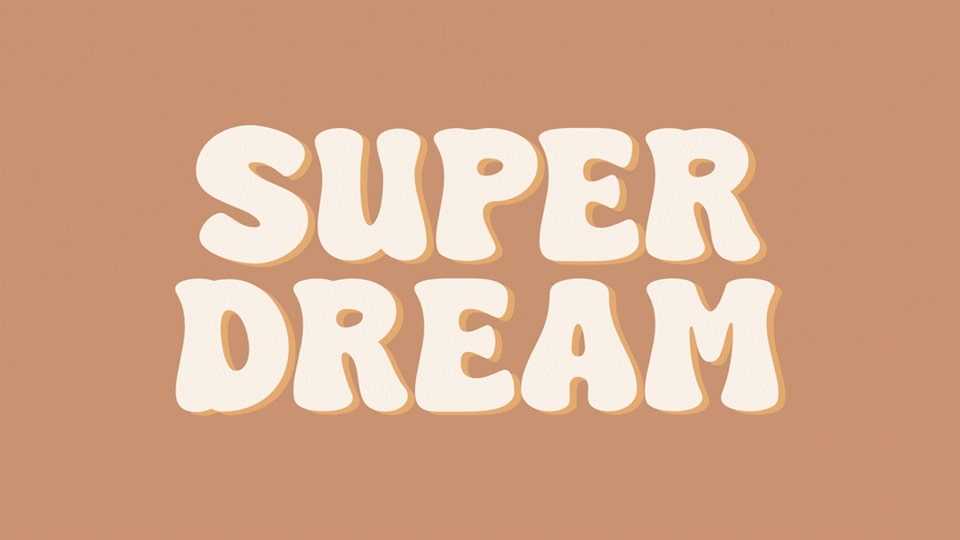
Download Super Dream font, a groovy cartoon typeface that transports your designs to a world of retro cool and vibrant funk. Super Dream creates a dynamic and energetic design, with each letter exuding a sense of rhythm and movement.